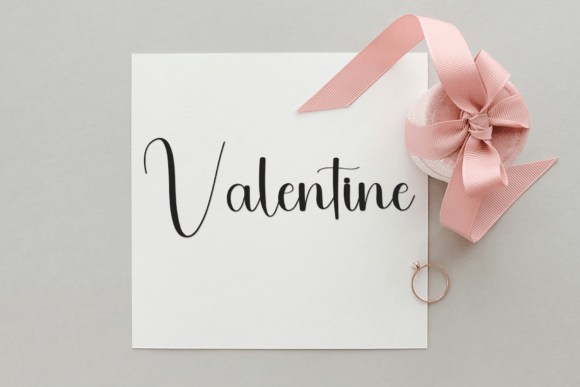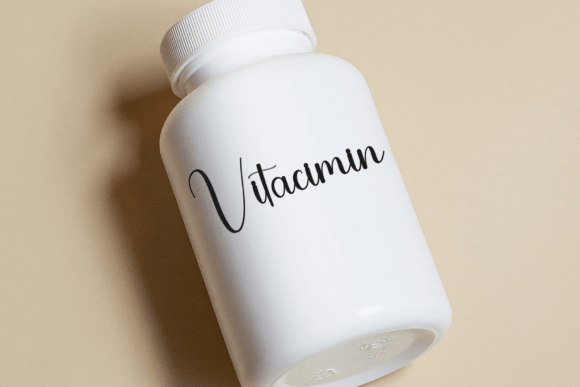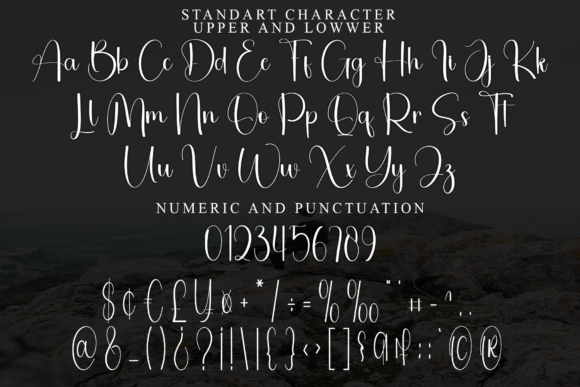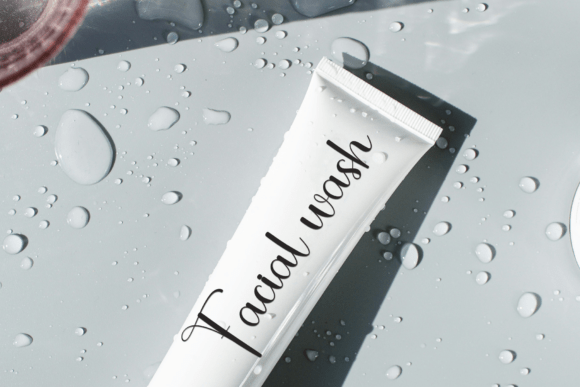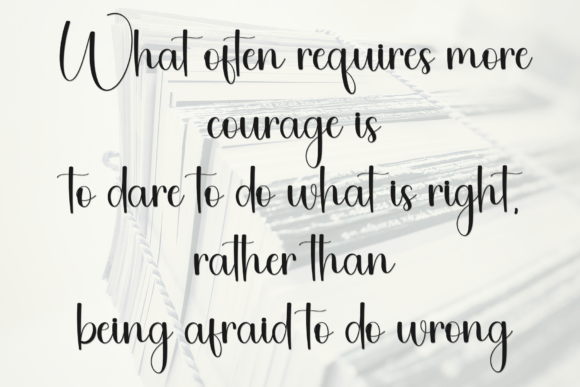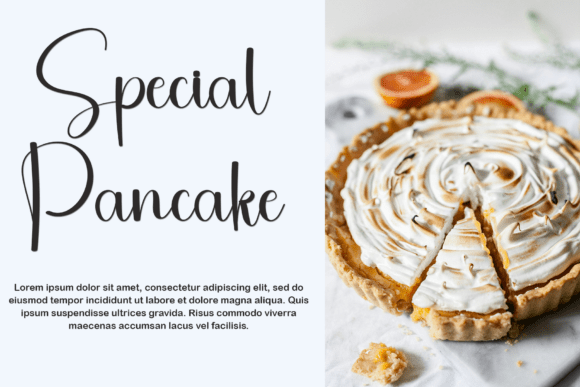
Introduction to Master Beauty Font
Have you ever stared at a blank canvas, searching for the perfect font to bring your creative project to life? The blank page can be intimidating, but with the right design resource, anything is possible. I still remember the thrill of discovering a high-quality font that perfectly captures the essence of my idea. That’s exactly what the Master Beauty Font does – it’s a game-changer for designers looking to add a personal touch to their work.
This charming font is more than just a pretty face; it’s a design game-changer. With its round, playful strokes and transparent background, the Master Beauty Font is perfect for personal projects, invitations, and social media graphics. Whether you’re a seasoned designer or a creative beginner, this font is sure to bring a smile to your face and inspire your next design project.
Key Features of Master Beauty Font
- High-quality design resource ideal for creative projects, offering a unique aesthetic.
- Characterized by its elegant and sophisticated design, Master Beauty Font is perfect for use in high-end design projects, such as luxury branding and advertising.
Honest Review: Master Beauty Font
As a designer, I’ve had my fair share of exploring various design resources, and I’m here to give you my honest take on the Master Beauty Font. Overall, I’d say it’s a solid addition to any design project.
What works well: ✨ The font’s high quality and clean design make it perfect for creating visually appealing headings and titles. The transparent background option also allows for seamless integration with any background image or color.
One of the standout features of the Master Beauty Font is its versatility. Whether you’re working on a creative project, a corporate brochure, or even a website, this font is sure to add a touch of elegance.
- High quality and clean design
- Suitable for various design projects
However, there are some limitations: ⚠️ The font’s range is somewhat limited, with only a few styles and weights available. This might not be ideal for designers who require a wider range of options.
Overall, the Master Beauty Font is a solid choice for designers looking for a high-quality, easy-to-use font. While it may not be the most extensive font collection, its clean design and transparent background make it a great addition to any design project.
Master Beauty Font is perfect for a variety of creative projects, including wedding invitations, branding materials, and digital products. Its high-quality design and elegant look make it a great choice for any project that requires a professional and sophisticated look.